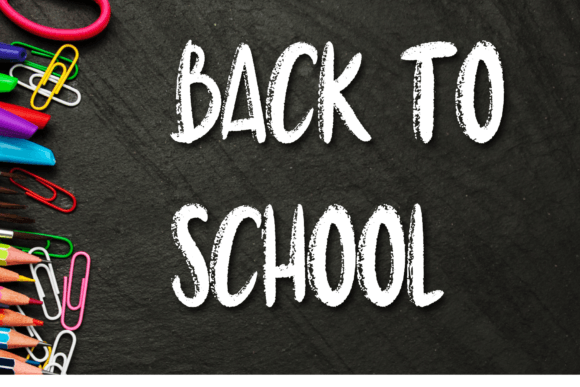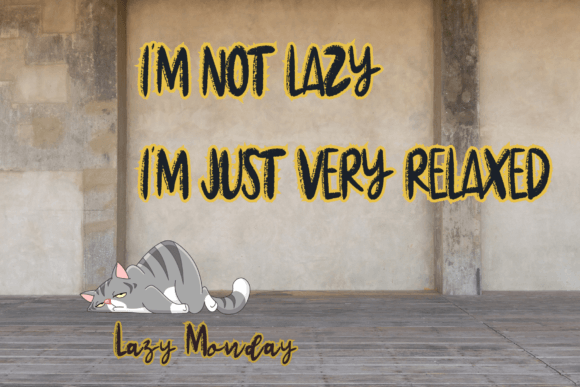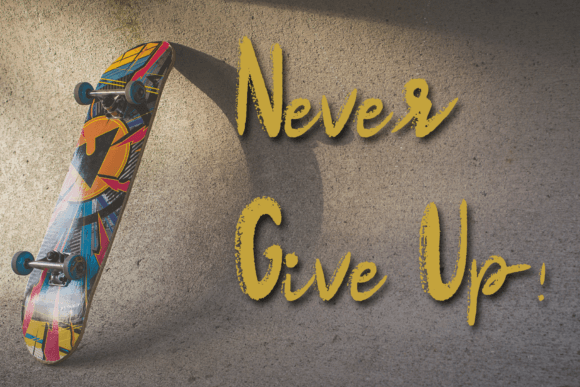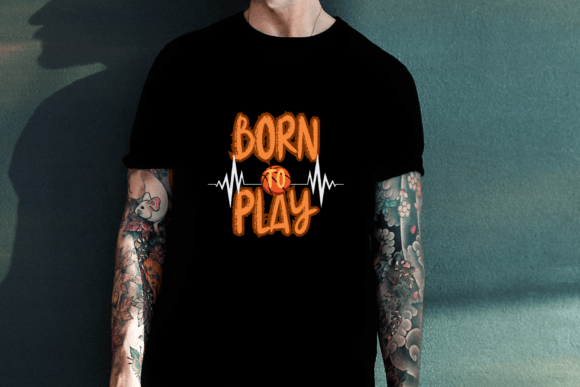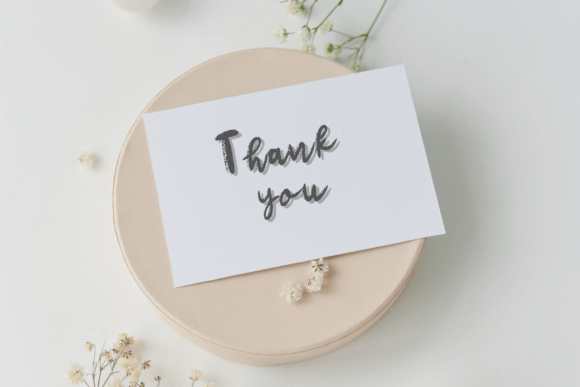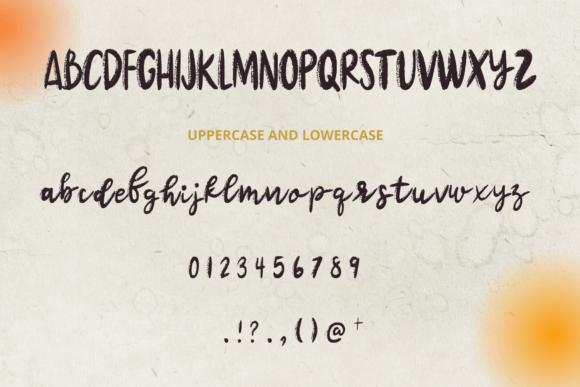
Introduction to Little Chalk Font
Have you ever been working on a creative project and felt like something was missing – a spark that would elevate your design from good to great? For many designers, finding the perfect font is the key to unlocking that magic. And that’s exactly what the Little Chalk Font offers – a unique and handwritten font that adds elegance and class to any design project.
Whether you’re working on a product label, wedding invitation, or social media post, the Little Chalk Font is a valuable design resource that can help you stand out from the crowd. Its high quality and versatility make it a must-have for any designer looking to add a touch of sophistication to their work.
Key Features of Little Chalk Font
- High-quality, free download font ideal for creative projects, offering a unique and playful touch.
- Features a transparent background, allowing for seamless integration into designs with varying backgrounds.
- Perfect design resource for projects requiring a whimsical and childlike aesthetic, such as children’s books, educational materials, and more.
- Includes a wide range of characters, including uppercase and lowercase letters, numbers, and special symbols, making it a versatile font for various applications.
- Designed with a high resolution, ensuring crisp and clear text output, even at larger font sizes.
Honest Review: Little Chalk Font
I recently stumbled upon the Little Chalk Font while searching for the perfect design resource for a creative project. I must say, I was impressed by its high quality and versatility.
What works well: ✨ The font is free to download, making it an excellent option for designers on a budget. The transparent background allows for seamless integration with various design elements. The font’s playful and childlike aesthetic makes it perfect for projects that require a whimsical touch.
What doesn’t work well: ⚠️ While the font is incredibly versatile, it may not be suitable for projects that require a more formal or professional tone. Additionally, the font’s design may not be as polished as some other high-end fonts on the market.
Overall impression: I was pleasantly surprised by the quality and creativity of the Little Chalk Font. While it may have some limitations, it’s an excellent addition to any designer’s toolkit. If you’re looking for a fun and engaging font for your next creative project, I highly recommend giving it a try.
- Perfect for creative projects that require a whimsical touch
Introduction to Little Chalk Font
The Little Chalk Font is a free design resource ideal for creating high-quality, visually appealing content. This font features a unique, hand-drawn style with a transparent background, making it perfect for creative projects.
Tips for Getting the Most Out of Little Chalk Font
To get the most out of the Little Chalk Font, use it in combination with other design elements, such as illustrations or graphics, to create a cohesive and visually appealing design. You can also experiment with different font sizes and colors to achieve the desired effect.
Common Use Cases for Little Chalk Font
The Little Chalk Font is suitable for a variety of creative projects, including:
Children’s book illustrations
Food and beverage branding
Education and learning materials
Alternatives to Little Chalk Font
The Great Vibes Font is a fun, elegant script font perfect for creative projects that require a touch of sophistication. It’s ideal for designing invitations, logos, or any other high-quality design resource where a unique, handwritten feel is desired.
When to use: Wedding invitations, greeting cards, or any project that needs a touch of elegance. How it compares to Little Chalk Font: Great Vibes Font has a more polished and refined look compared to the playful, childlike feel of Little Chalk Font.
Can I use Little Chalk Font with a transparent background?
Yes, Little Chalk Font comes with a transparent background, making it easy to use in various design scenarios. You can use it as a standalone font or combine it with other design elements to create a unique visual effect.